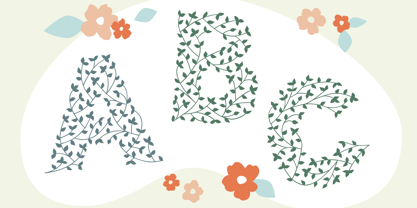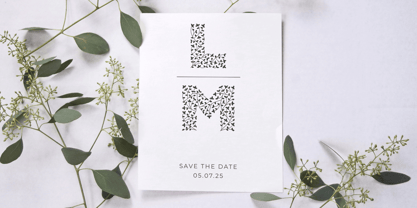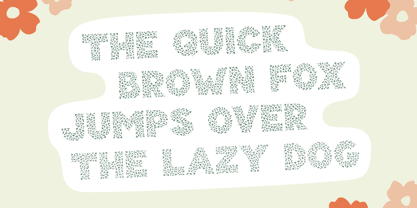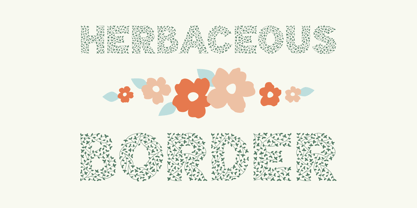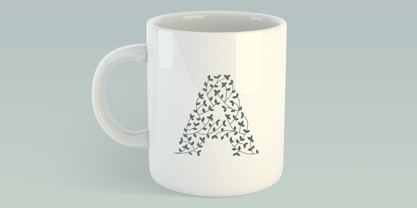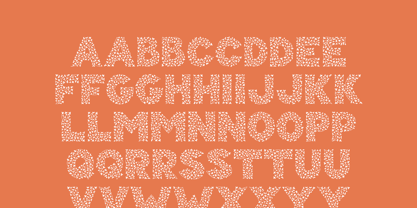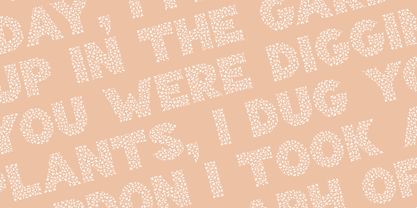
Herbaceous Border
by Lauren Ashpole
The Herbaceous Border Font Family was designed by Lauren Ashpole and published by Lauren Ashpole. Herbaceous Border contains 1 styles. More about this family
Herbaceous Border features blocky letters made up of an intricate pattern of leaves and vines. It should definitely be used for headlines to get the most out of the details. All of the letters are capitals but the lowercase characters provide an alternative set of leafy designs.